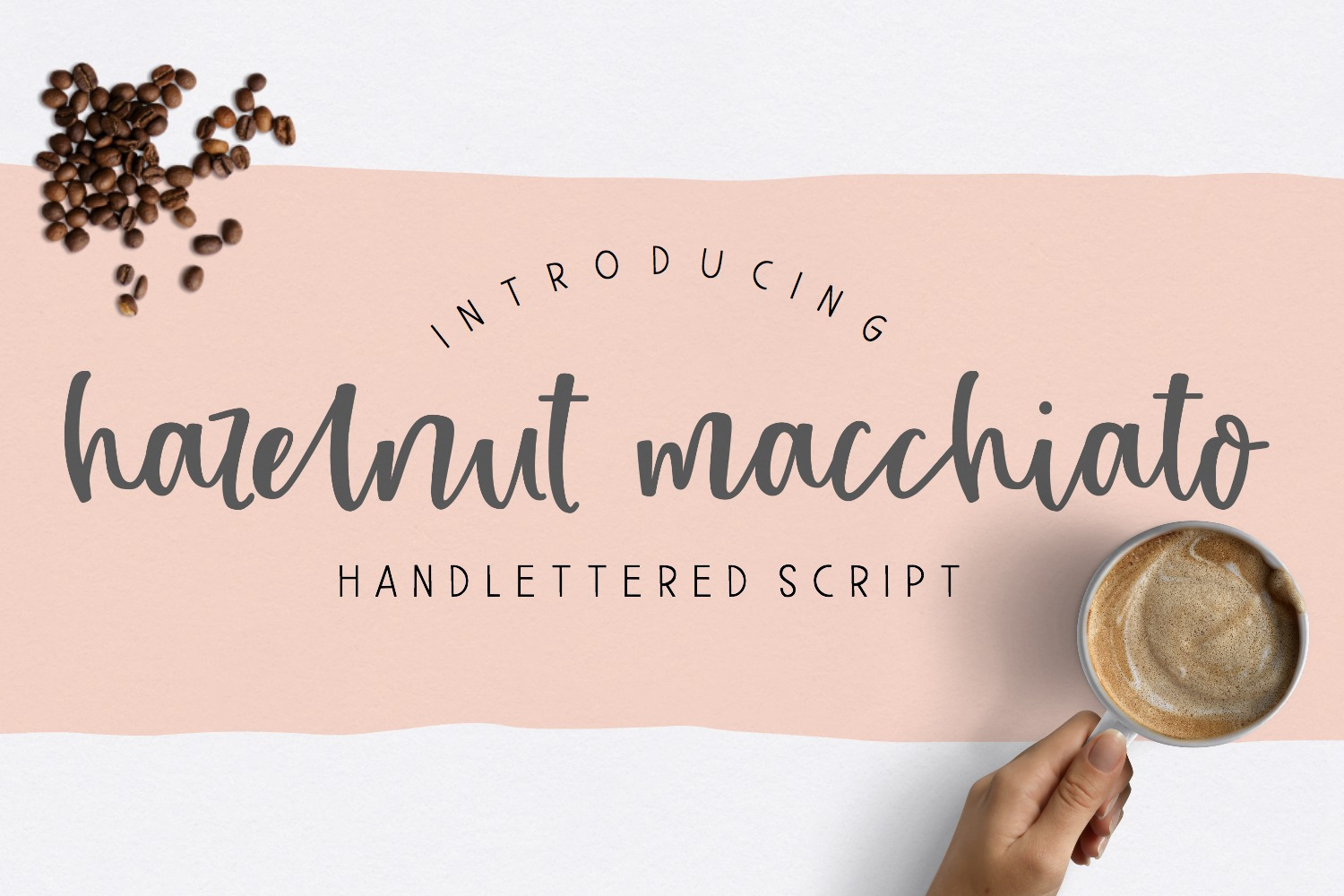
Hazelnut Macchiato Script Font
Introducing Hazelnut Macchiato: a hand lettered script font with a sweet, charming personality!
I've made this font super-smooth with Cricut & Silhouette crafters in mind! Basic Latin and most Western European languages are supported.